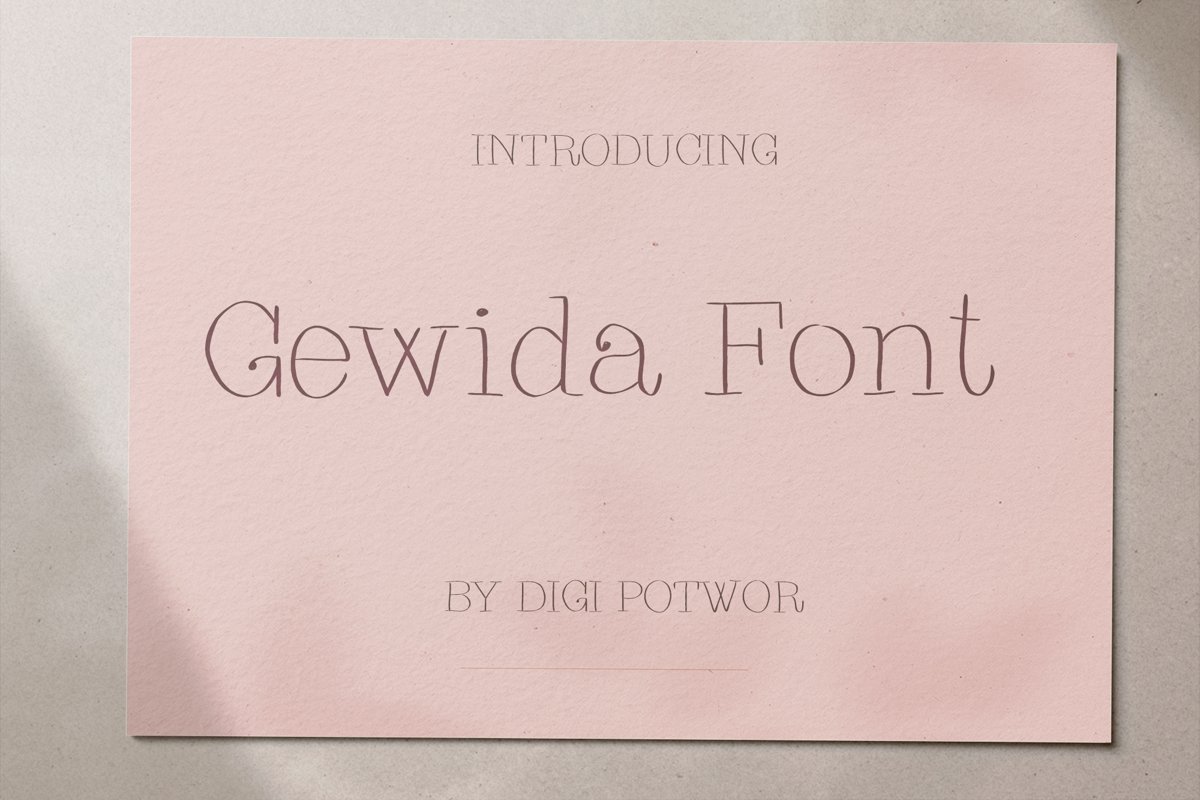
Gewida font
gewida
Sweet and flowing handwritten font, fitting both formal and non-formal
events. Its timeless style will be perfect for creating beautiful
wedding invitations, greeting cards, logos and much more.